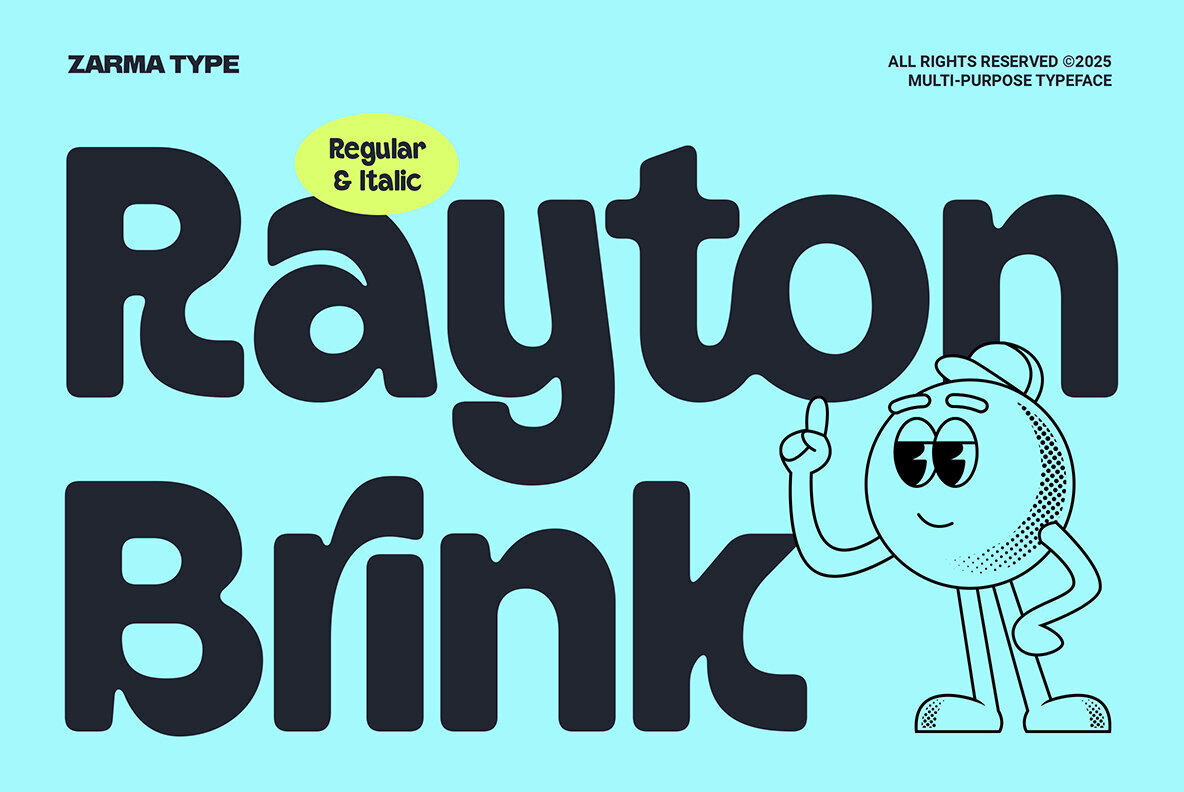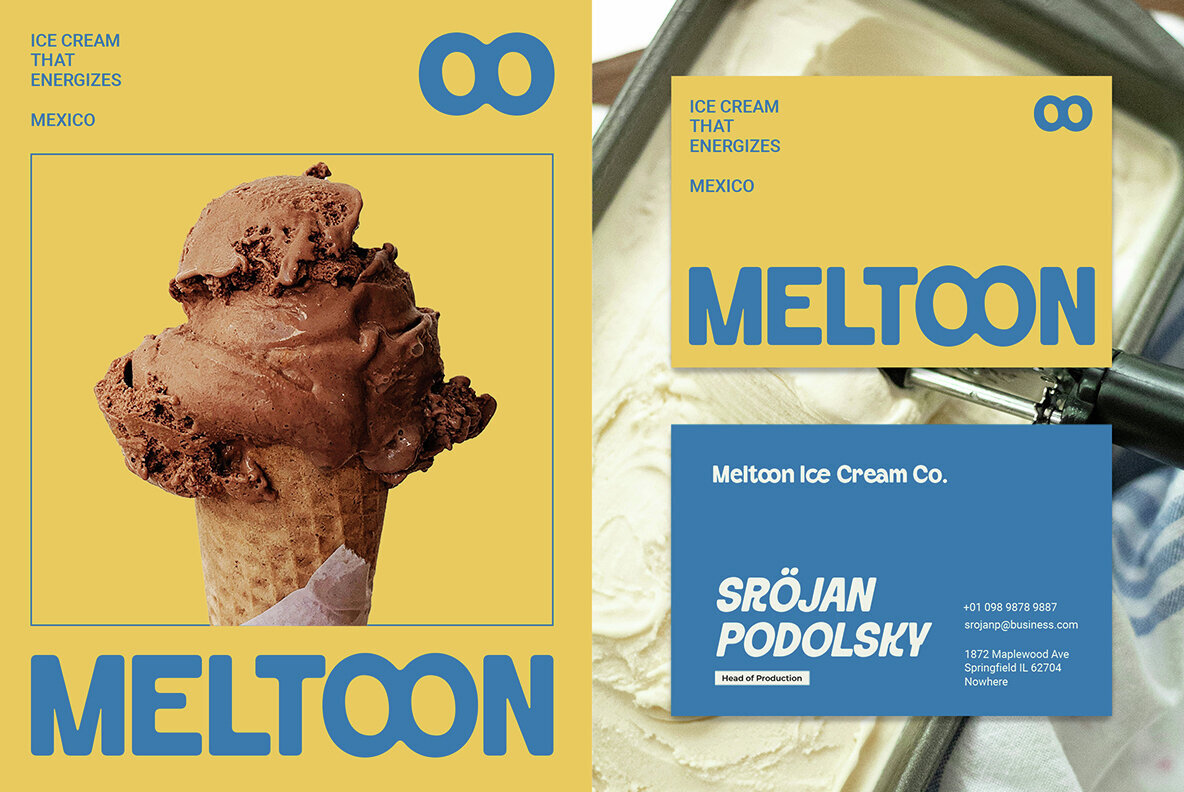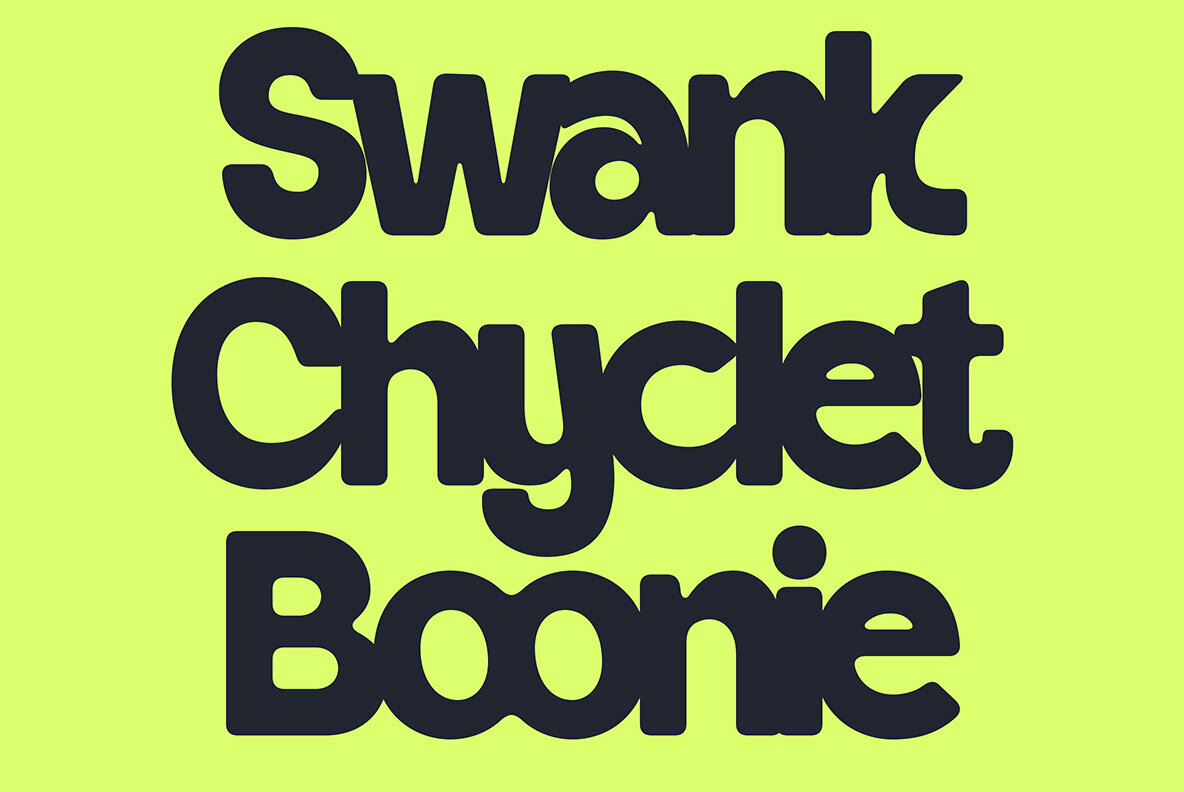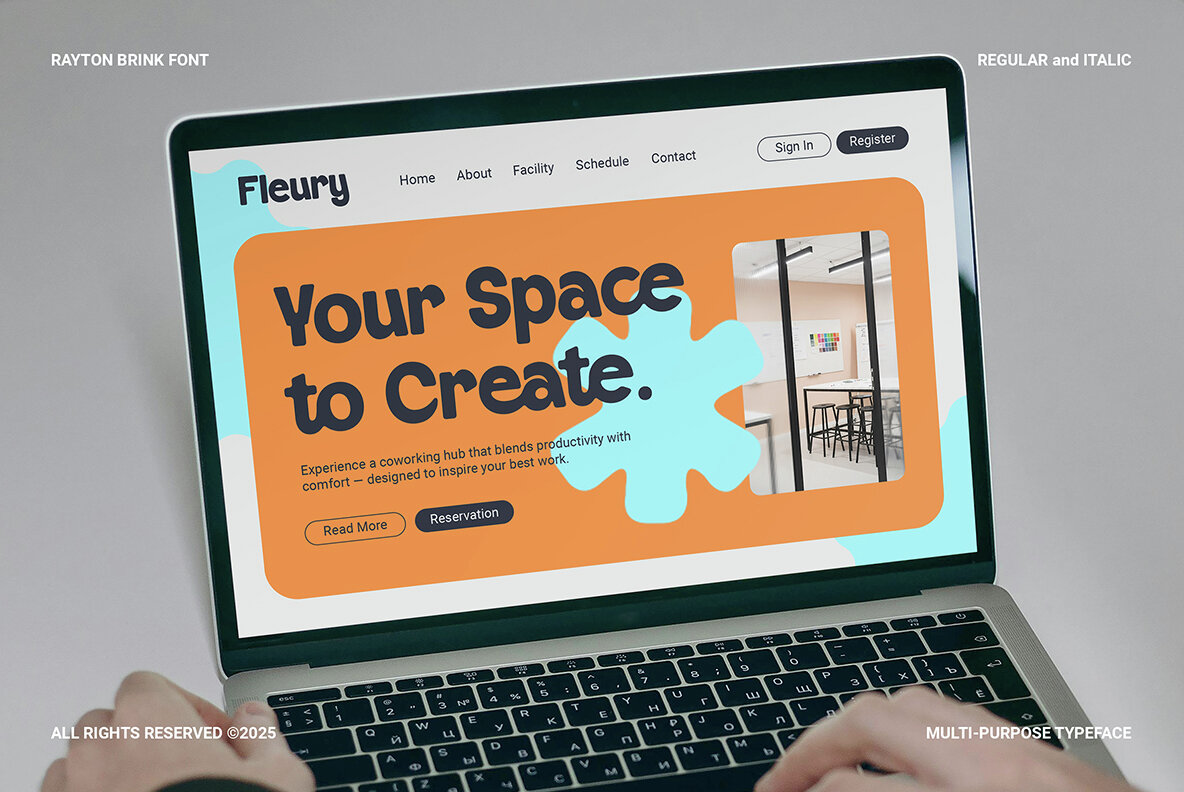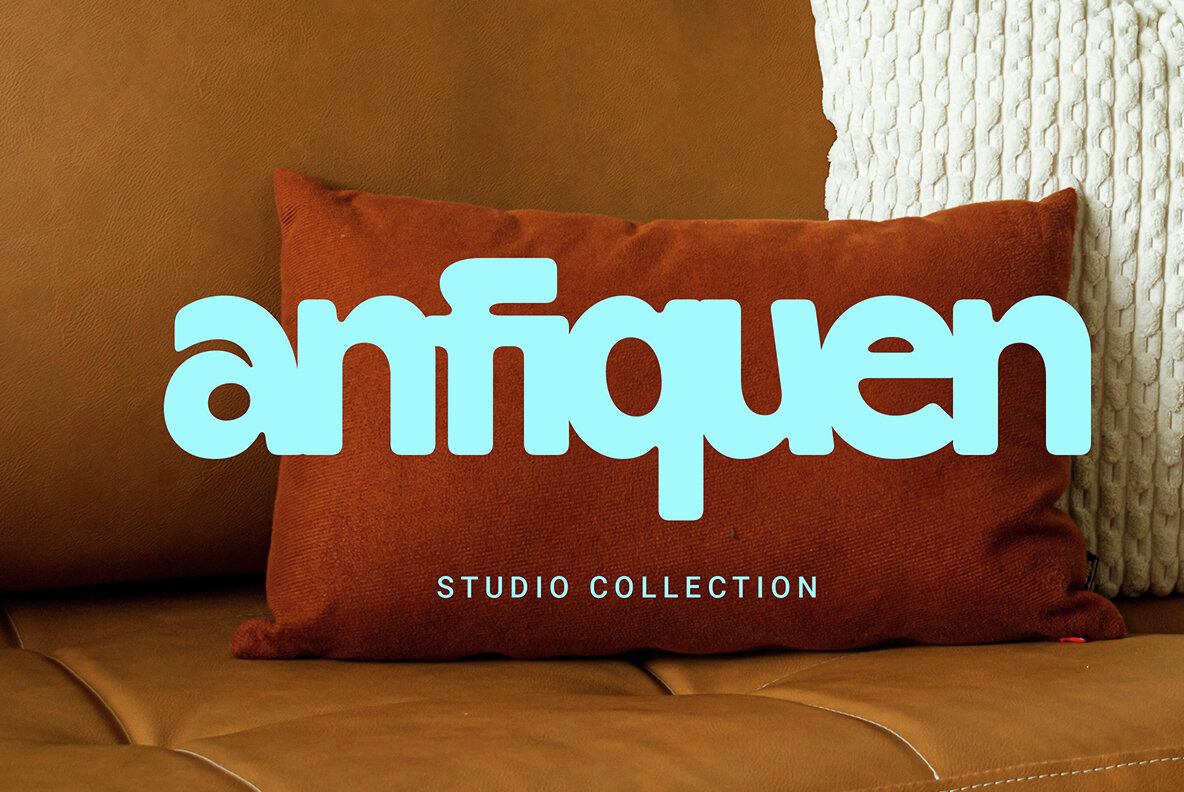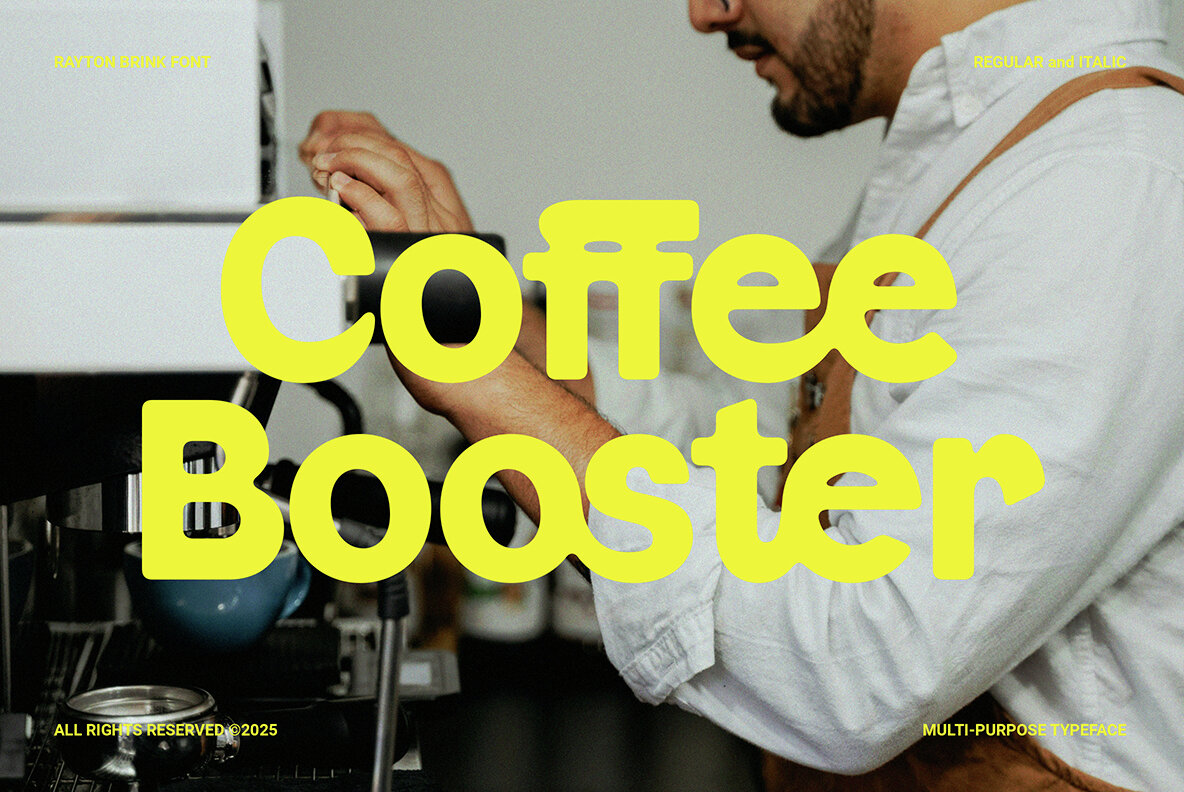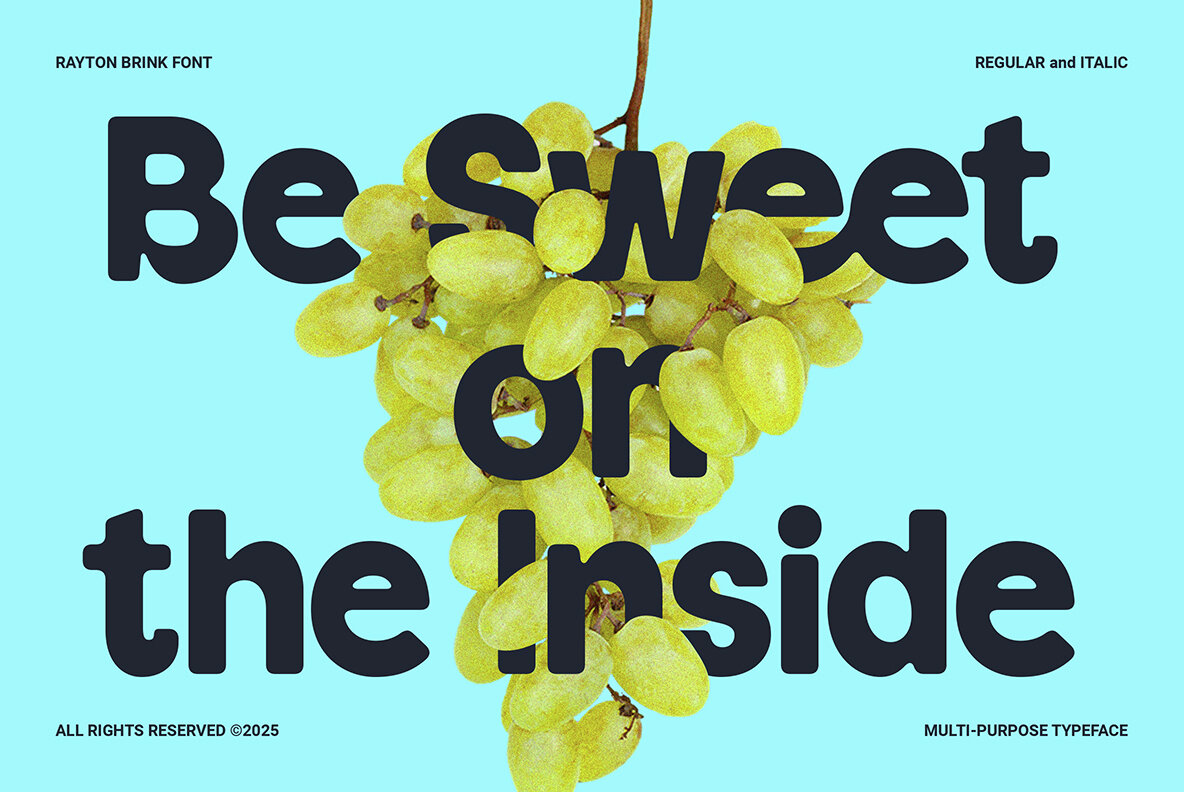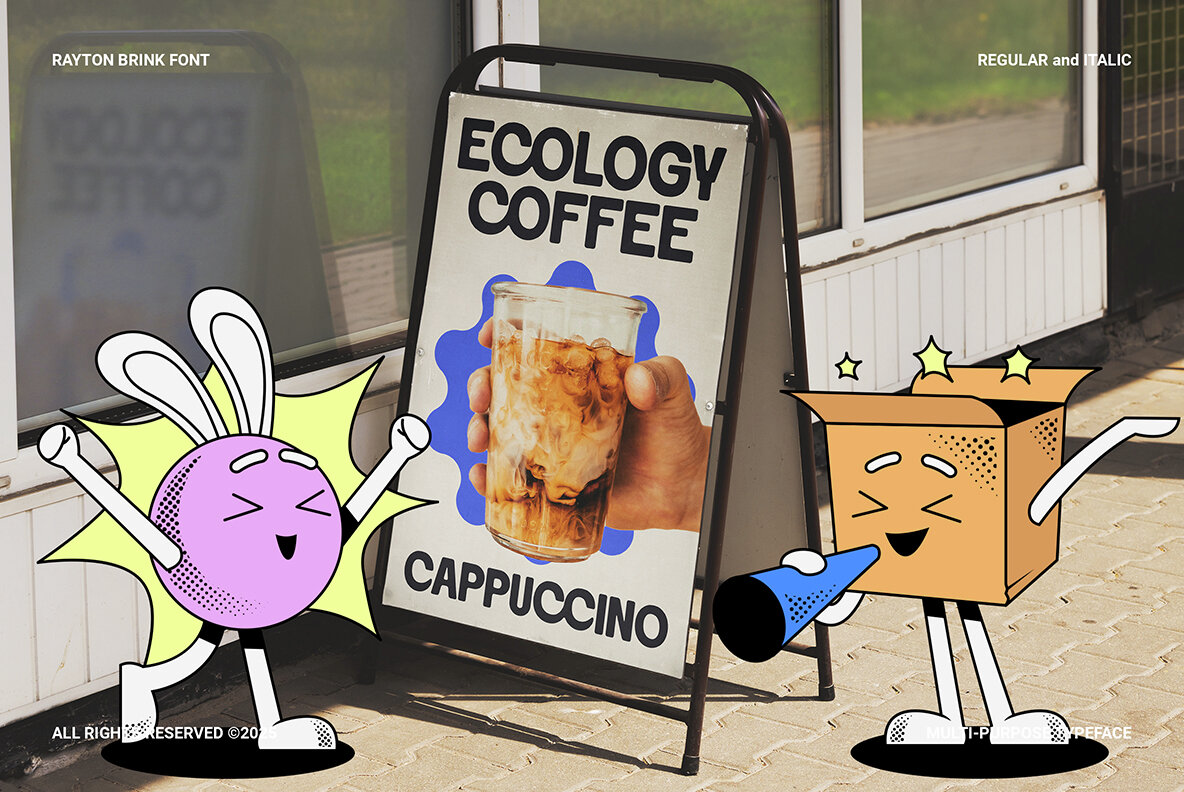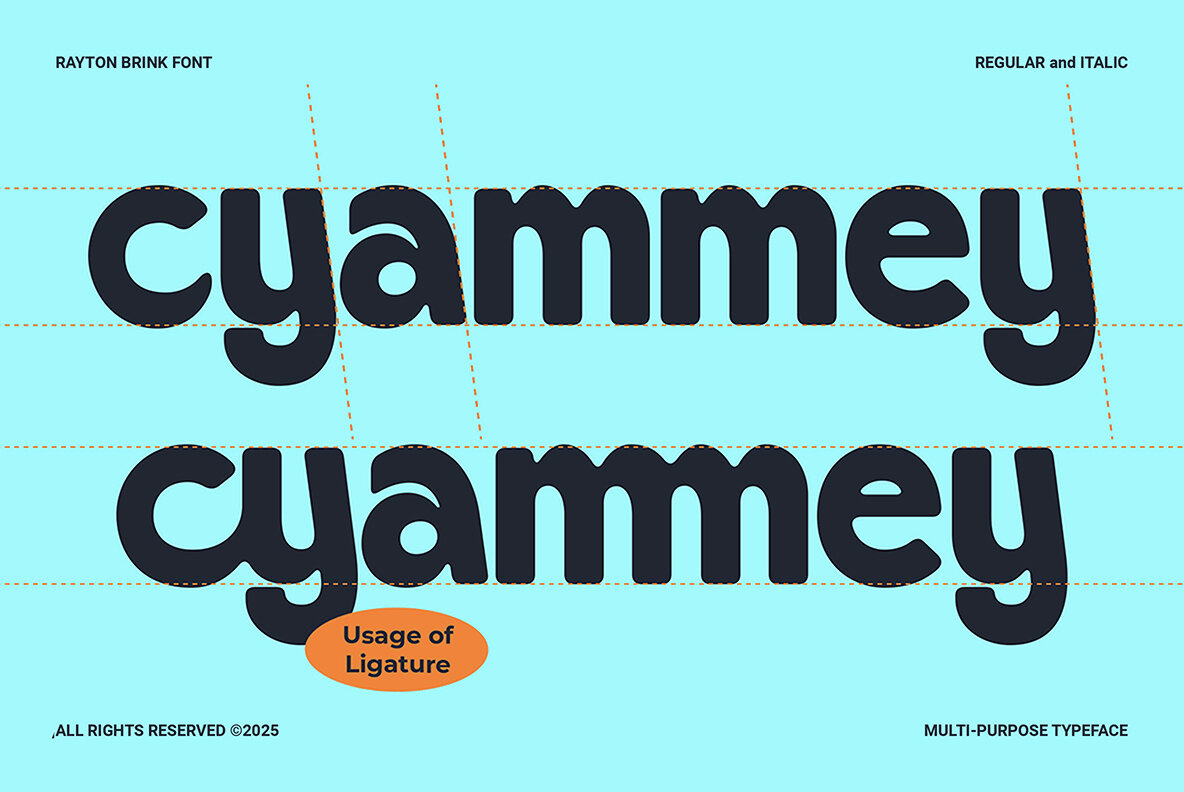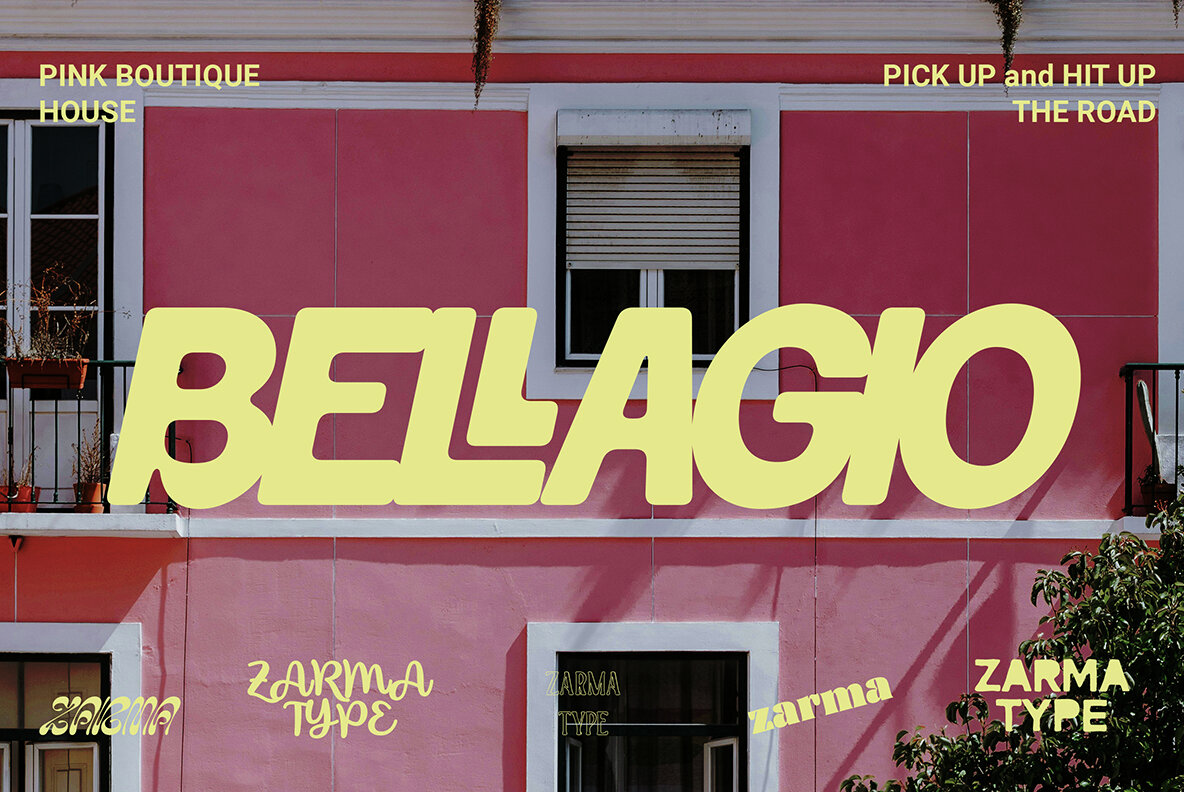
Rayton Brink Font
Rayton Brink is a rounded typeface crafted to infuse brand identities with joy and clarity. Its smooth, thick curves and lively presence bring warmth and creativity to visuals. Ideal for bold homepage headlines, product labels, or vibrant displays, it offers consistency without losing character. Every letter feels intentional, forming a personable voice that bridges modern aesthetics with nostalgic charm. Its versatility shines in maintaining legibility while adding fun and elegance to any layout. Inspired by bubbly aesthetics and childlike wonder, Rayton Brink suits diverse branding needs, especially in lifestyle, food, tech, and children-focused markets. With rounded terminals and geometric construction, it provides clarity and balance, fostering emotional connections. This font comes with practical OpenType features, including multilingual support and alternate styles. Rayton Brink is not just a font—it's a storytelling tool for brands aiming to be approachable and engaging.Rayton Brink: Friendly Font with Playful Warmth